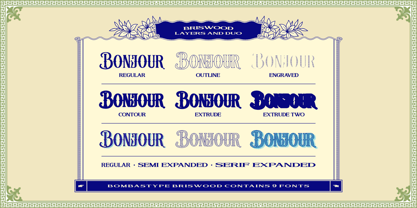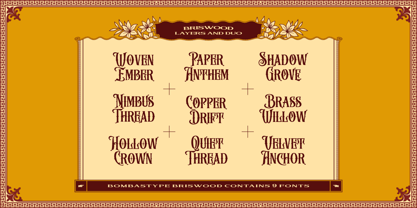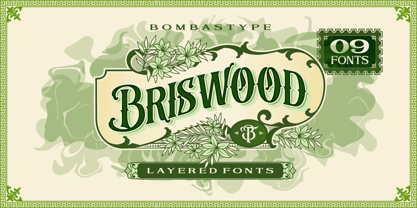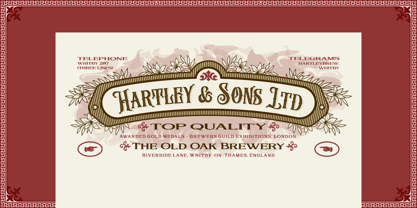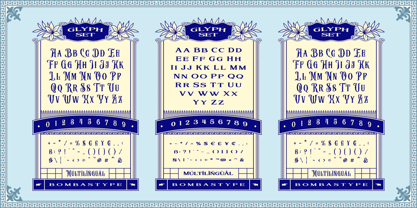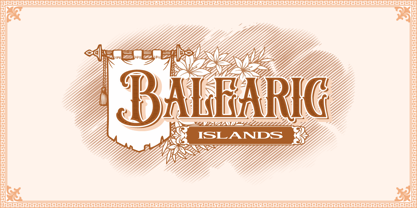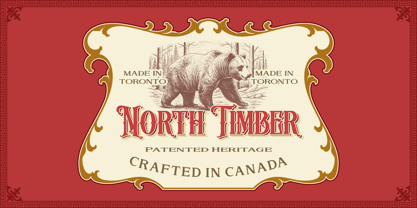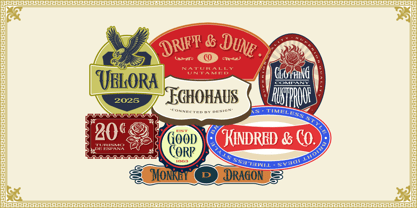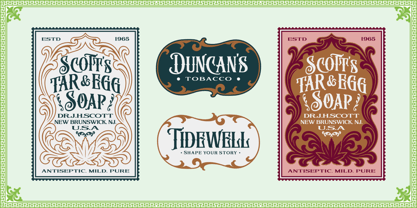
Briswood
by Bombastype
The Briswood Font Family was designed by Amir Subqi Setiaji, Bangkit Tri Setiadi and published by Bombastype. Briswood contains 9 styles and family package options. More about this family
Step into the golden age of typography with Briswood, a masterfully layered vintage font suite inspired by Victorian signage, brewery labels, and ornamental print ephemera. Designed with precision and flair, Briswood offers a bold typographic toolkit for designers seeking elegance, drama, and timeless charm.
• 6 Victorian Layered Styles:
• Regular – The classic foundation
• Contour – A fine-lined accent
• Outline – Bold and open
• Engraved – Intricate and refined
• Extrude – Dimensional depth
• Extrude Two – A heavier shadow punch
• 3 Serif Companions (Perfect for pairing):
• Standard Serif – Clean and versatile
• Semi-Expanded – Balanced and stately
• Expanded – Grand and commanding
Whether you’re crafting vintage packaging, ornate headlines, or typographic posters with flair, Briswood delivers layered sophistication with modular flexibility. Each style is designed to stack, combine, and harmonize—giving you full control over tone, texture, and typographic drama.